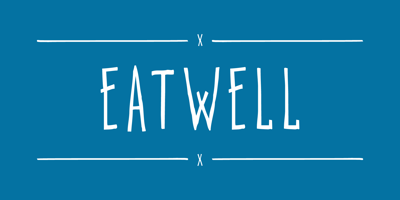
Eatwell
Eatwell font
Eatwell Font Family was designed by Chank Diesel and published by Chank. Eatwell contains 6 styles and family package options. Formerly known as Eatpoo, Chank found it ironic that the first place he saw this font family in use was on the grocery bags for the local food co-ops. He thought it was funny that some designer used a font named Eatpoo for a stinkin’ hippy store. Now Chank’s eating as much tofu and sprouts as the stinkiest of hippies, and has since renamed the font Eatwell. The first font Chank ever made with his left hand, this rough hand-drawn display font comes in three weights: Skinny, Tall and Fat.